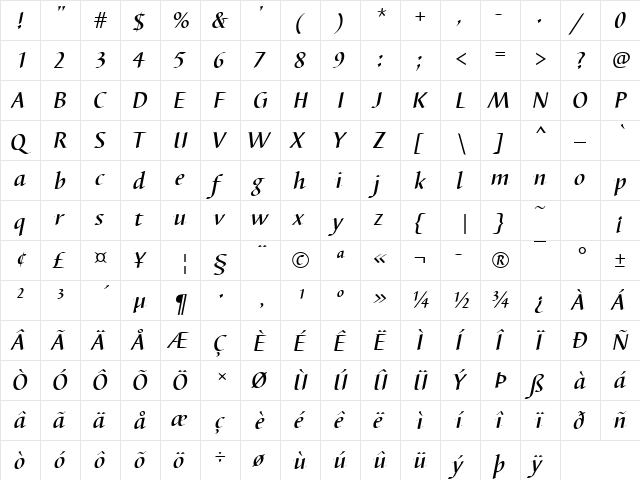
BarbedorTMed Italic
Design Context for BarbedorTMed Typeface
BarbedorTMed is a composed and adaptable typeface that performs quietly and consistently across a wide range of design contexts. The slanted form adds forward momentum and visual energy.
Pro Tip: Try BarbedorTMed for annotation and caption copy alongside an upright companion — the contrast in angle creates a dynamic but ordered typographic system.